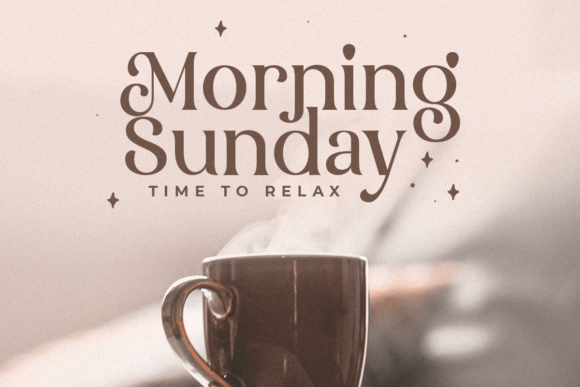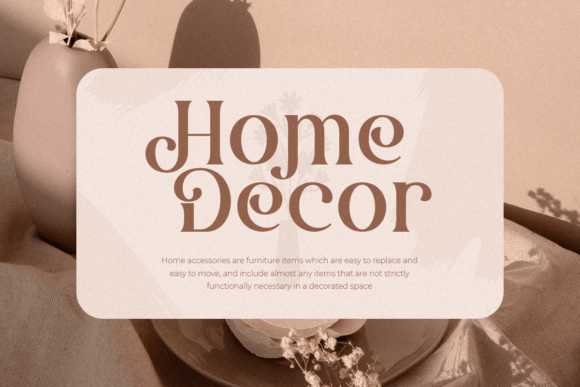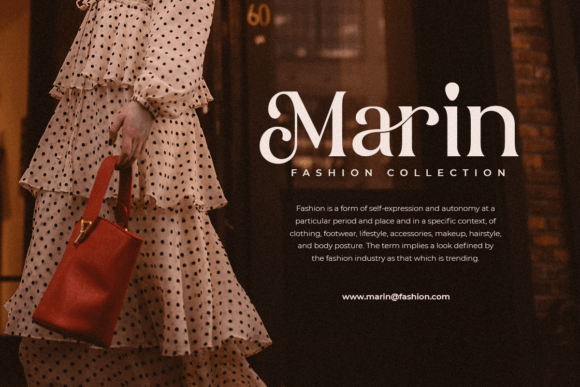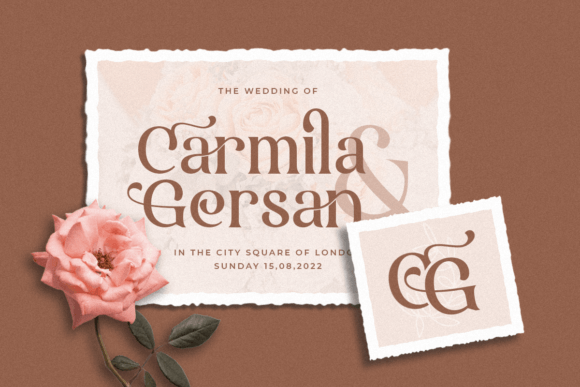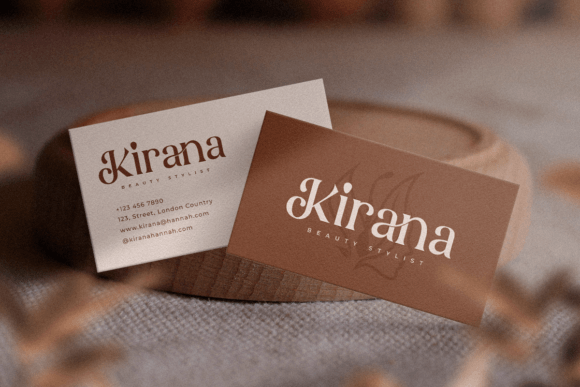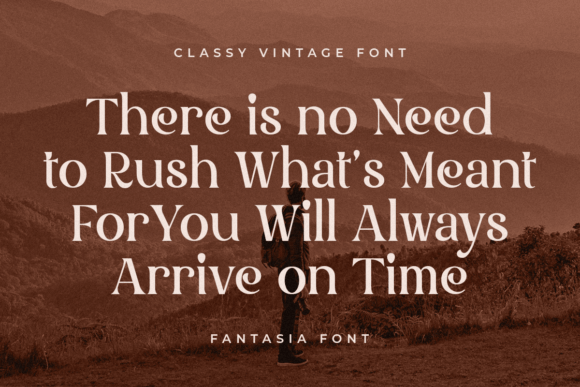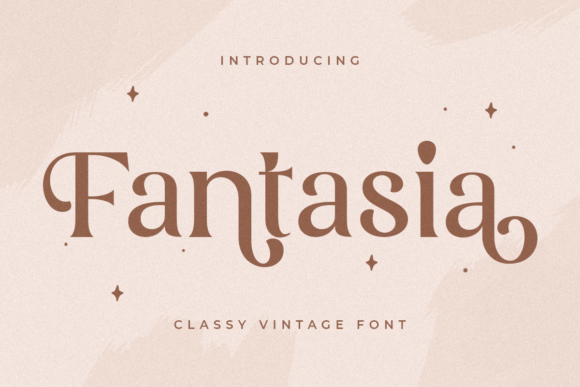
Fantasia Font: Elevate Your Design with Timeless Elegance
In the world of typography, fonts play a crucial role in conveying the tone and personality of a brand, product, or message. For designers and crafters seeking to add a touch of sophistication and elegance to their projects, the Fantasia Font is an excellent choice. This stylish serif font seamlessly blends classic elegance with modern flair, making it perfect for upscale branding, sophisticated print media, and elegant invitations.
The Characteristics of Fantasia Font
Fantasia Font is distinguished by its graceful curves and sharp serifs, which come together to create a visually stunning and refined aesthetic. The font’s design is characterized by:
- Classic Elegance: Fantasia’s roots in traditional serif fonts are evident in its classic design elements, which evoke a sense of timelessness and sophistication.
- Modern Flair: The font’s modern twists, such as its sleek lines and refined curves, bring a contemporary edge to its classic foundation.
- Versatility: Fantasia’s versatile design makes it suitable for a wide range of applications, from high-end branding and print media to elegant invitations and digital content.
Applications of Fantasia Font
The Fantasia Font is an excellent choice for various design projects, including:
- Upscale Branding: Fantasia’s sophisticated design makes it perfect for luxury brands seeking to establish a high-end image.
- Sophisticated Print Media: The font’s elegant appearance is well-suited for high-end magazines, newspapers, and other print publications.
- Elegant Invitations: Fantasia’s refined design makes it an excellent choice for formal event invitations, such as weddings, galas, and other high-end events.
- Digital Content: The font’s legibility and classic design also make it suitable for digital content, including websites, blogs, and social media graphics.
Benefits of Using Fantasia Font
By incorporating Fantasia Font into your design projects, you can:
- Elevate Your Brand: Fantasia’s sophisticated design can help establish your brand as high-end and luxurious.
- Add Timeless Elegance: The font’s classic design elements ensure that your project will remain stylish and relevant for years to come.
- Enhance Readability: Fantasia’s clear and legible design makes it easy to read, even in smaller sizes.
Tips for Using Fantasia Font
To get the most out of Fantasia Font, consider the following tips:
- Pair with Complementary Fonts: Combine Fantasia with complementary fonts to create visual interest and hierarchy in your design.
- Use for Headings and Titles: Fantasia’s elegant design makes it perfect for headings and titles, where it can add a touch of sophistication and elegance.
- Experiment with Colors: Try pairing Fantasia with different colors to create a unique and eye-catching design.
In conclusion, the Fantasia Font is an excellent choice for designers and crafters seeking to add a touch of elegance and sophistication to their projects. With its classic design elements, modern flair, and versatility, Fantasia is perfect for upscale branding, sophisticated print media, and elegant invitations. By incorporating Fantasia into your design projects, you can elevate your brand, add timeless elegance, and enhance readability. So why wait? Elevate your design with Fantasia, where timeless beauty meets contemporary sophistication in every stroke.